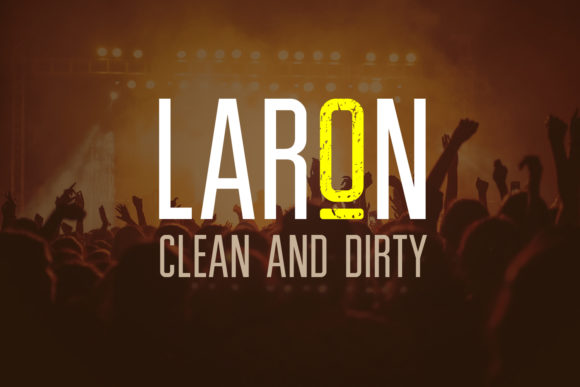
**Introducing Laron Font: A Retro Masterpiece for Your Designs**
Unleash the charm of yesteryears with Laron Font, a decorative font family that transports you back to the golden era of design. Its rounded corners and soft curves evoke a sense of nostalgia, while its modern and elegant style keeps your projects grounded in the present.
Laron Font is a versatile chameleon that adapts effortlessly to various design projects. Whether you're crafting logos, branding materials, posters, invitations, or social media graphics, Laron Font elevates your designs with a touch of retro elegance.
**Immerse Your Designs in Retro Charm**
Laron Font's unique blend of classic and contemporary elements makes it the perfect choice for projects that seek a vintage aesthetic. Its soft rounded corners and flowing curves exude a sense of warmth and familiarity, instantly transporting your audience to an era of sophistication and timeless beauty.
**Enhance Your Designs with Timeless Elegance**
Laron Font's elegant strokes and refined details add a touch of sophistication to your designs, making them stand out from the crowd. Its clean lines and crisp edges ensure that your message shines through with clarity and impact.
**Laron Font: The Perfect Choice for Your Creative Endeavors**
Whether you're a seasoned designer or just starting out, Laron Font is your reliable companion in creating captivating designs that leave a lasting impression. Its intuitive design and ease of use make it accessible to designers of all levels.
**Embark on a Creative Journey with Laron Font**
Let Laron Font be your guide as you explore the world of retro-inspired designs. Its versatility and timeless appeal make it an invaluable asset to your creative arsenal, helping you craft projects that resonate with your audience and leave them spellbound.